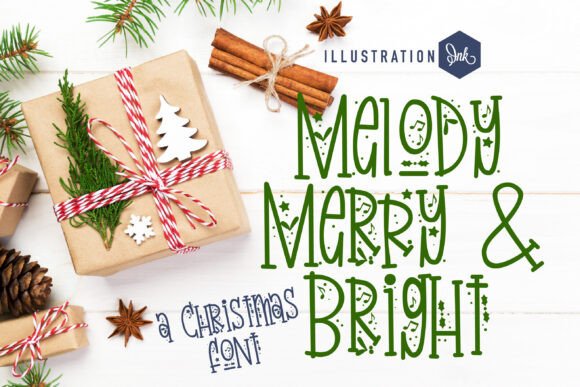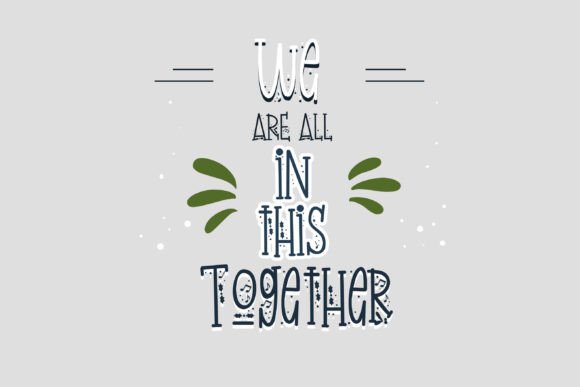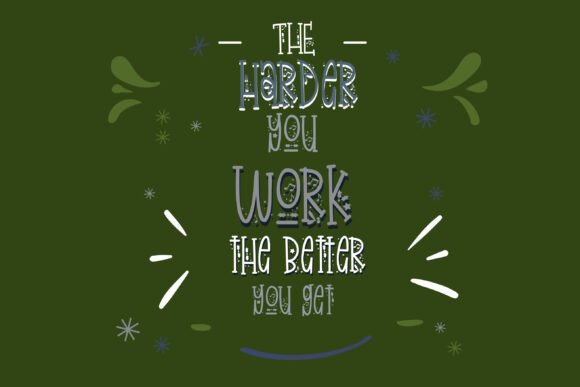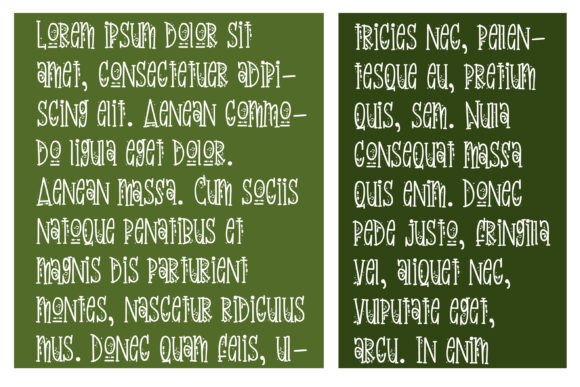
Melody Merry and Bright Font
About the Melody Merry and Bright Font
Let us introduce you to Melody Merry and Bright Font, where timeless design meets modern craftsmanship. This hand-crafted font is a whimsical serif with snow, stars, musical notes, and holly.
Melody Merry and Bright excels in projects requiring a playful, festive feel. Ideal applications include holiday-themed designs, children’s books, invitations, and branding for businesses with a lighthearted, approachable image. It’s less suitable for body text or UI elements due to its decorative nature and potentially low readability in extended passages.
Pairing it with a clean sans-serif like Open Sans for body copy creates a strong contrast, balancing the whimsicality of Melody Merry and Bright. For a more sophisticated feel, consider pairing it with a classic serif like Garamond for secondary text, maintaining a sense of occasion without overwhelming the design.
The font’s overall personality is undeniably cheerful and festive, making it a perfect choice for projects aiming for a lighthearted and memorable impression.
Melody Merry and Bright Font Example